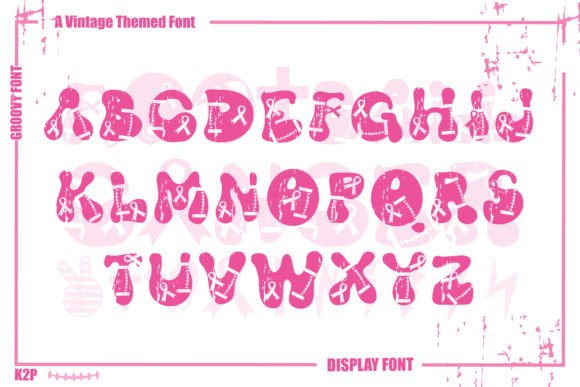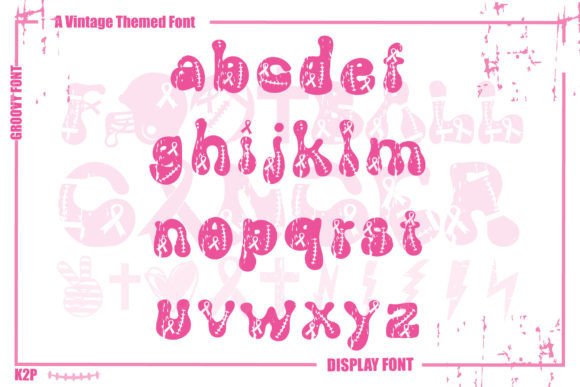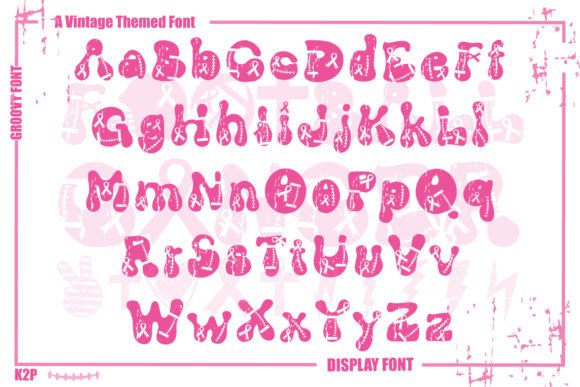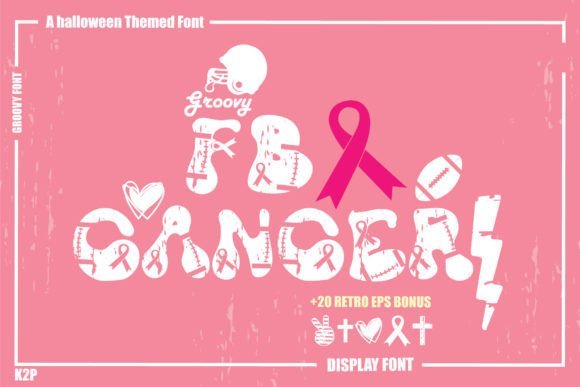
Introduction to Groovy Fb Cancer Font
Groovy FB Cancer is a thick-lettered unique decorative font.
It is perfectly suitable for any breast cancer awareness project This font is PUA encoded which means you can access all glyphs and swashes with ease.
Key Features of Groovy Fb Cancer Font
Why Choose Groovy Fb Cancer Font?